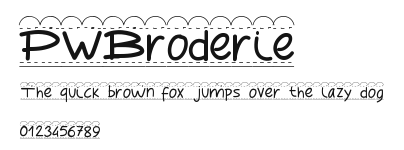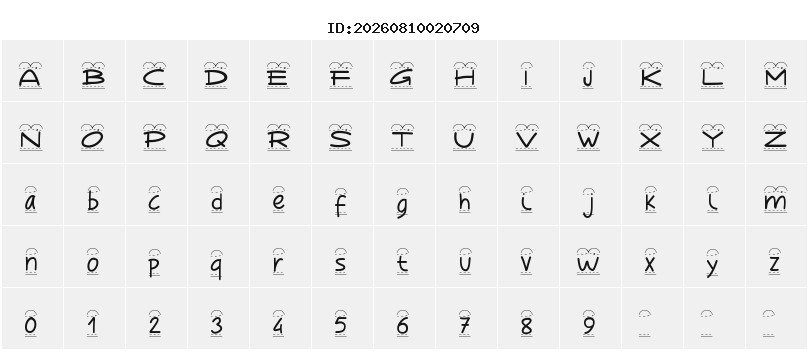
• Font Name: PWBroderie
• Font ID: PeaxWebdesign:PWBroderie
• Full Font Name: PWBroderie
• PostScript Name: PWBroderie
• Character Count: 197
About PWBroderie.ttf
PWBroderie.ttf is a modern, elegant sans-serif font designed for ultimate readability and visual harmony. Perfect for branding, headlines, web design, and print materials.